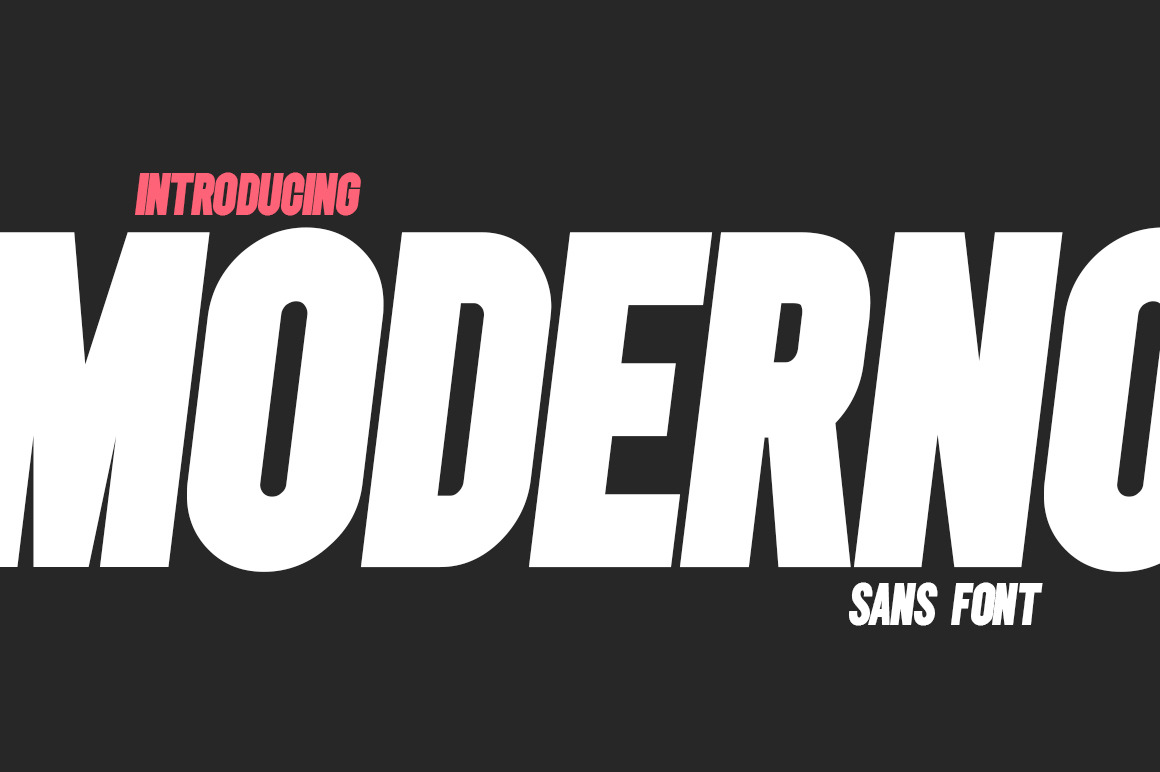
Moderno Sans Font
Introducing the new Moderno Sans Font! A bold, chunky italic that oozes strength and fierceness. Try it for yourself and see how eye-catching your new stand-out designs will be!